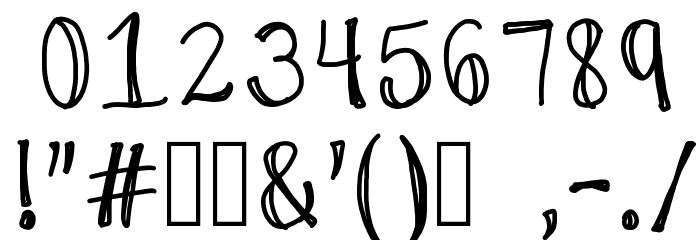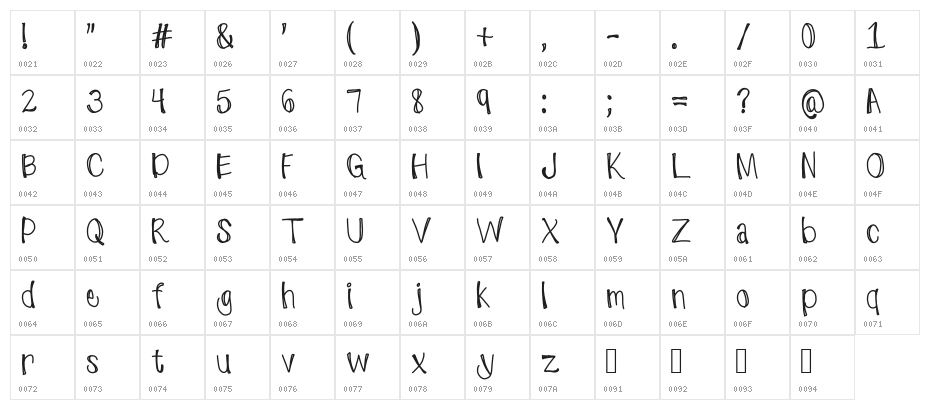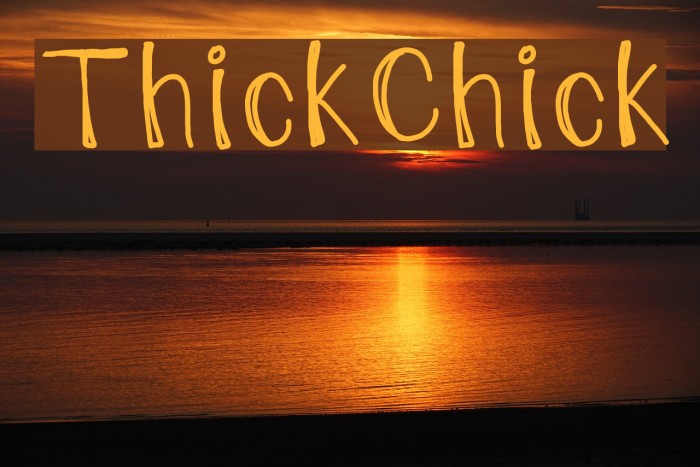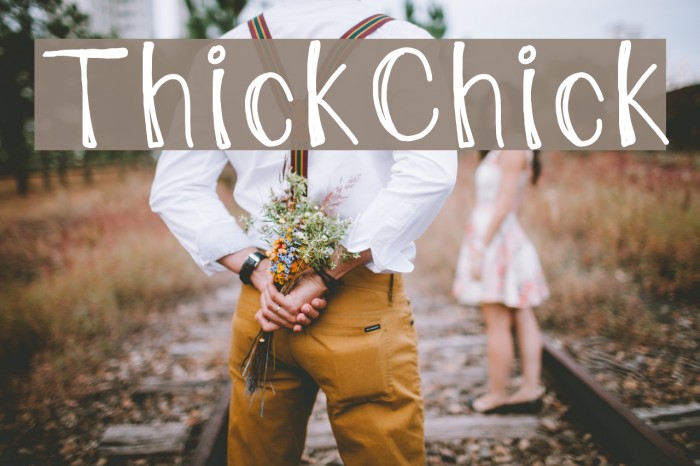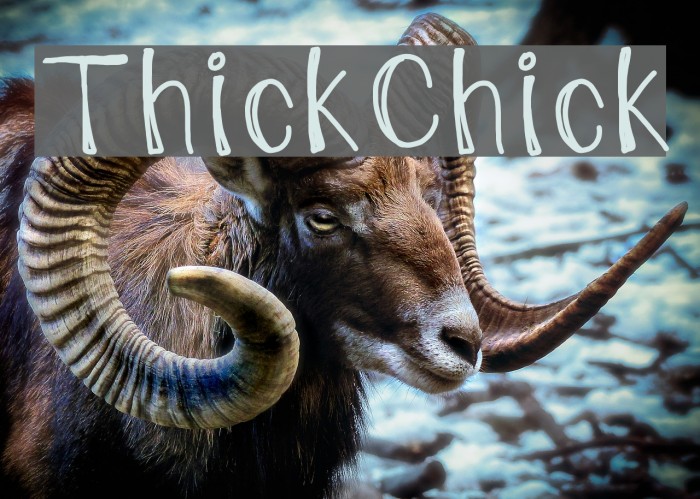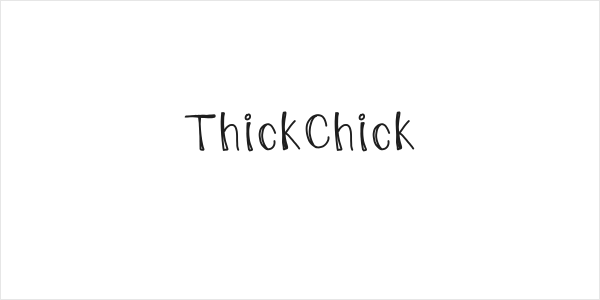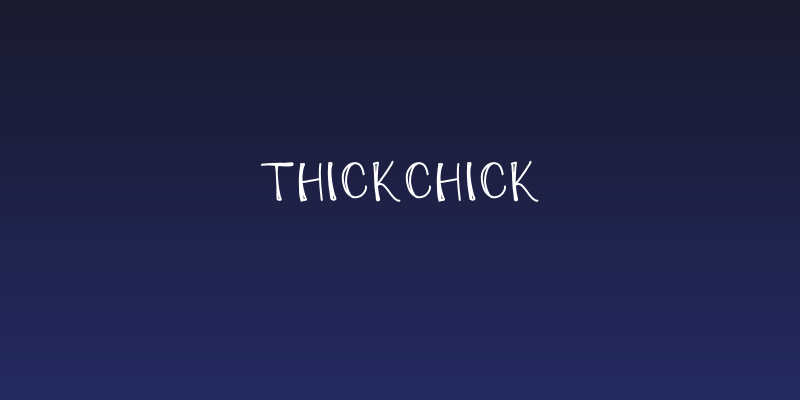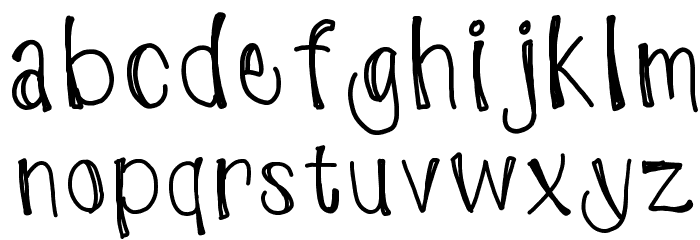
ThickChick Font
ThickChick Description
This font features a playful and whimsical handwritten style, characterized by its thick and uneven strokes that give it a lively and dynamic appearance. The letters are slightly irregular, adding a personal and informal touch. The uppercase and lowercase letters maintain a consistent style, with rounded edges and a casual flow. The numerals and special characters complement the overall design, making it suitable for creative and informal projects. The font's unique style makes it stand out, offering a friendly and approachable feel.